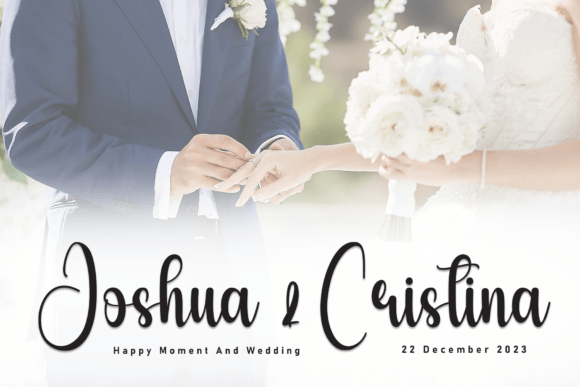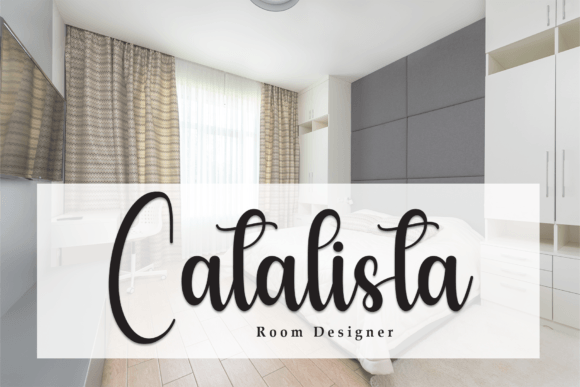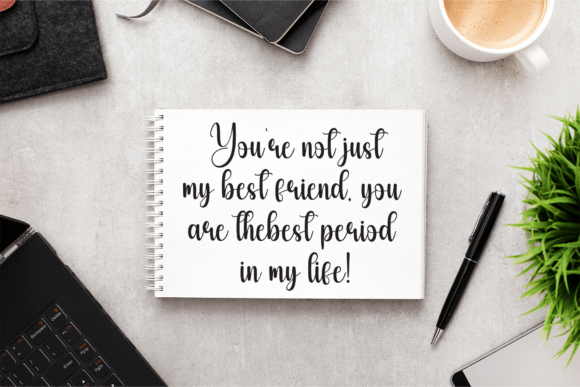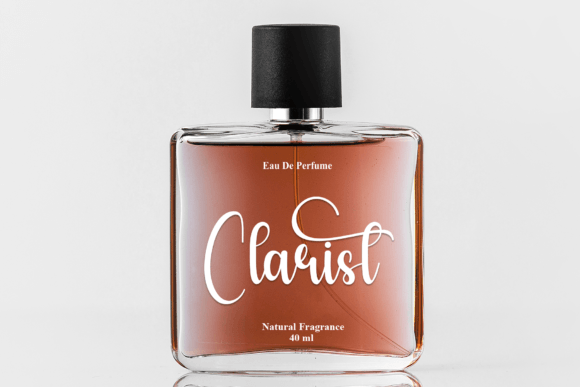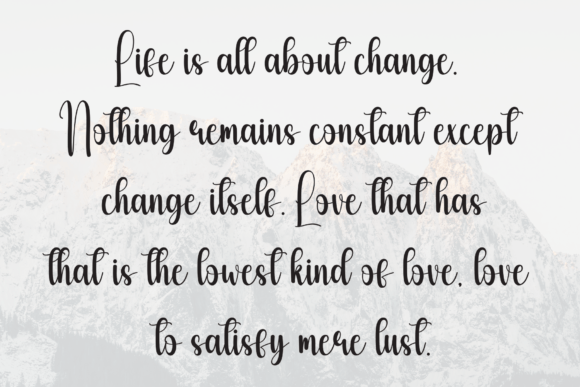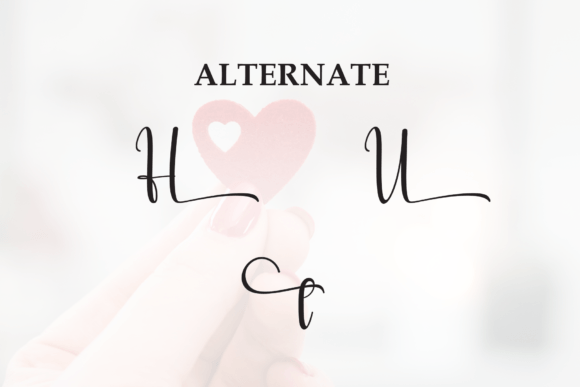
Introducing Heart Font: The Sweet and Friendly Handwritten Display Font
Are you looking for a font that can add a touch of warmth and playfulness to your designs? Look no further than Heart Font, a beautiful handwritten display font that is perfect for creating wedding invitations, cards, and other designs that require a fun and friendly touch.
What is Heart Font?
Heart Font is a sweet and friendly handwritten display font that is designed to bring a smile to your face. With its cute and fun appearance, this font is ideal for designers and crafters who want to add a personal touch to their work. Whether you’re creating wedding invitations, birthday cards, or social media graphics, Heart Font is the perfect choice.
Key Features of Heart Font
- Handwritten appearance: Heart Font has a beautiful handwritten appearance that gives it a personal and friendly feel.
- Cute and fun: This font is designed to be cute and fun, making it perfect for designs that require a playful touch.
- Display font: Heart Font is a display font, which means it’s perfect for headlines, titles, and other prominent text elements.
- Easy to read: Despite its playful appearance, Heart Font is easy to read, making it perfect for body text as well.
Uses for Heart Font
Heart Font is a versatile font that can be used for a wide range of design projects. Here are some ideas to get you started:
- Wedding invitations: Heart Font is perfect for creating beautiful and unique wedding invitations that will set the tone for the big day.
- Birthday cards: This font is also great for creating birthday cards that are fun and playful.
- Social media graphics: Heart Font can be used to create social media graphics that are eye-catching and engaging.
- Party decorations: This font can be used to create party decorations, such as banners and signs, that are fun and festive.
Tips for Using Heart Font
Here are some tips for using Heart Font in your designs:
- Use it sparingly: Heart Font is a display font, so it’s best to use it sparingly to add emphasis to your designs.
- Pair it with other fonts: This font pairs well with other fonts, such as sans-serif fonts, to create a fun and playful contrast.
- Experiment with colors: Heart Font looks great in a variety of colors, so don’t be afraid to experiment and find the perfect color for your design.
Why Designers and Crafters Love Heart Font
Designers and crafters love Heart Font for many reasons. Here are a few:
- Unique appearance: Heart Font has a unique appearance that sets it apart from other fonts.
- Easy to use: This font is easy to use, even for designers and crafters who are new to typography.
- Versatile: Heart Font can be used for a wide range of design projects, from wedding invitations to social media graphics.
In conclusion, Heart Font is a sweet and friendly handwritten display font that is perfect for designers and crafters who want to add a touch of warmth and playfulness to their designs. With its cute and fun appearance, this font is ideal for creating wedding invitations, cards, and other designs that require a fun and friendly touch. Whether you’re a seasoned designer or a crafter just starting out, Heart Font is a great addition to your font collection.